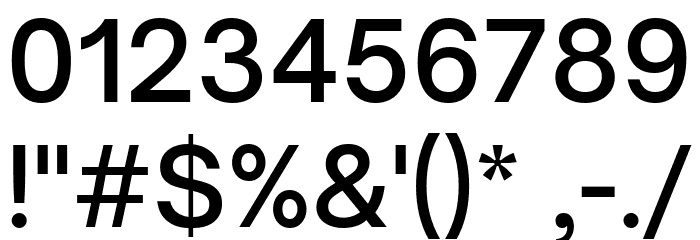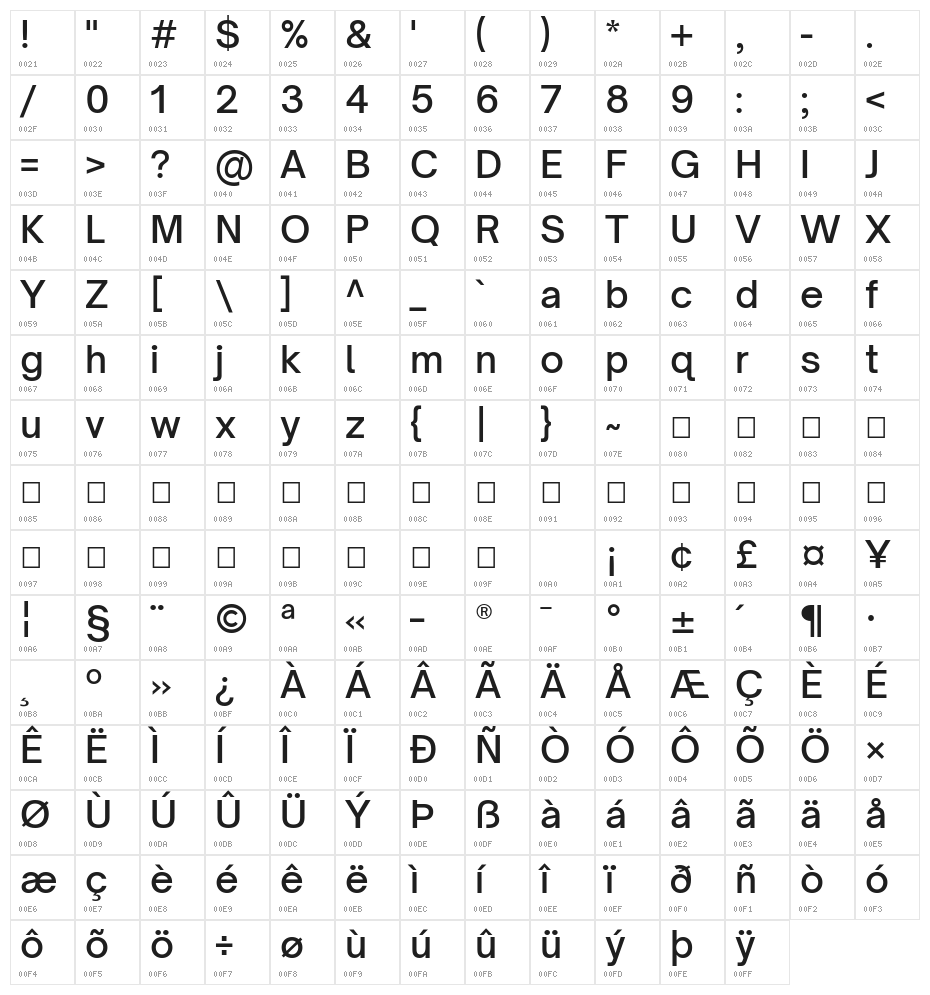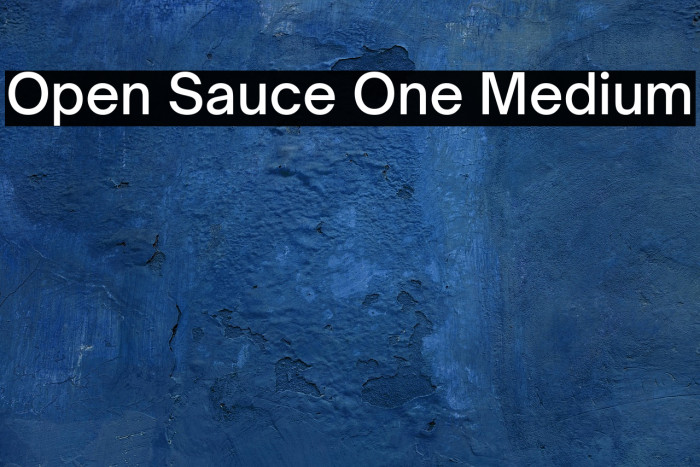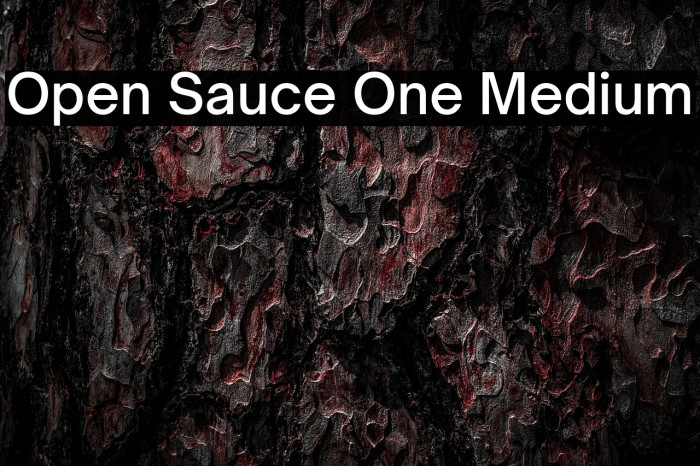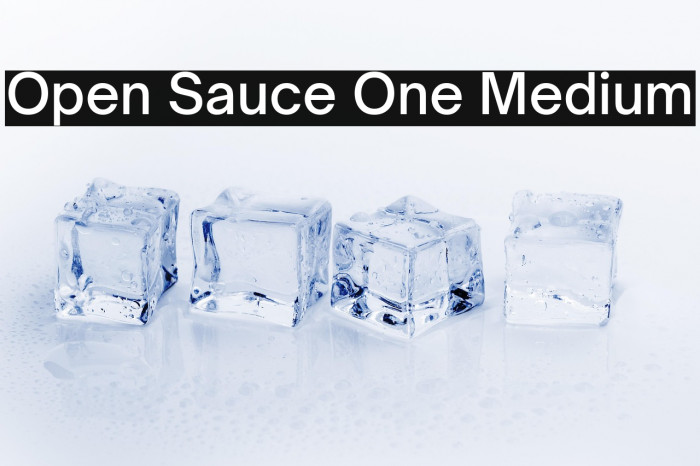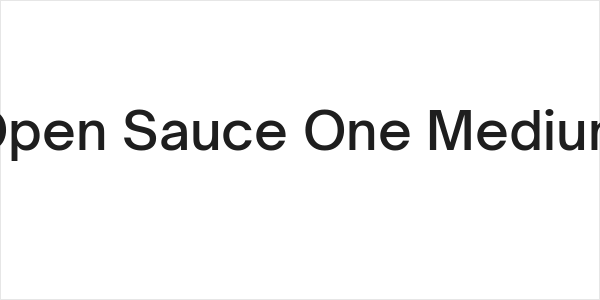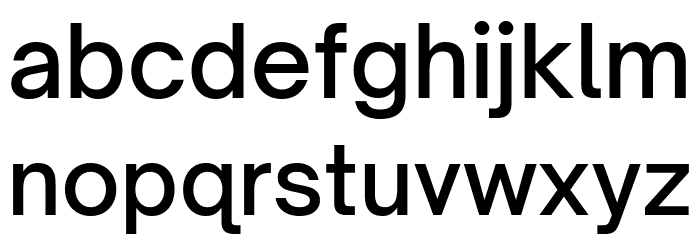
Open Sauce One Medium Font
Open Sauce One Medium Description
This font is a clean, modern sans-serif typeface characterized by its geometric shapes and uniform stroke widths. The letters are well-balanced and maintain a consistent height, providing a harmonious appearance. The uppercase letters are bold and assertive, while the lowercase letters are more rounded and approachable. The numerals are clear and easy to read, making them suitable for various applications. Special characters are designed with simplicity and clarity in mind, ensuring they blend seamlessly with the rest of the typeface.
| Proposed Projects | Ideal for digital interfaces, branding, advertising, and editorial design. |